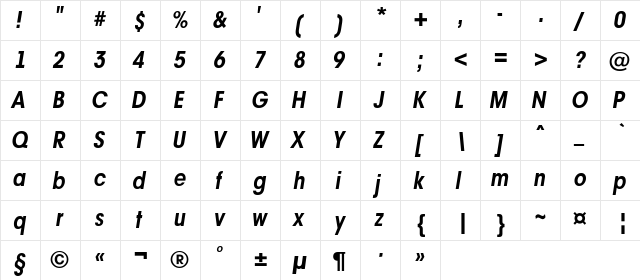
a_AvanteBsNr BoldItalic
Design Context for a_AvanteBsNr Typeface
a_AvanteBsNr offers clean, dependable letterforms without strong stylistic allegiance, making it a practical choice for designers who need flexibility. The dynamic lean of this cut emphasises speed and emphasis in any layout. Its bold stroke weight gives it real presence on the page.
Pro Tip: Try a_AvanteBsNr for annotation and caption copy alongside an upright companion — the contrast in angle creates a dynamic but ordered typographic system.